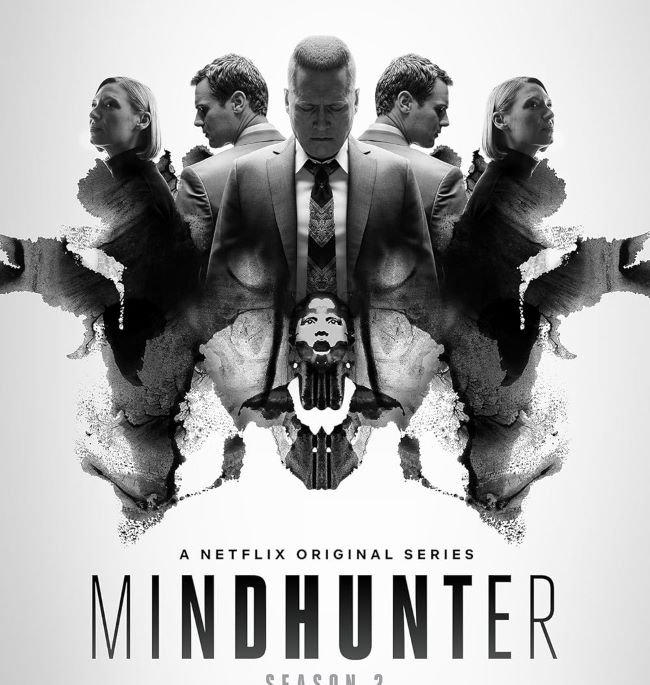
Mindhunter font uses Heroic Condensed — a tight, uppercase sans-serif font with the clinical precision of a case file header or a government document cover — and the choice is so exactly appropriate to David Fincher’s 2017 Netflix series that it barely requires commentary: this is a font for people who interview serial killers for a living, who write up their findings in documents that will be read by people who need the information and have no interest in the packaging. The freely available Mindhunter Font Alternative approximates this cold, compressed authority.